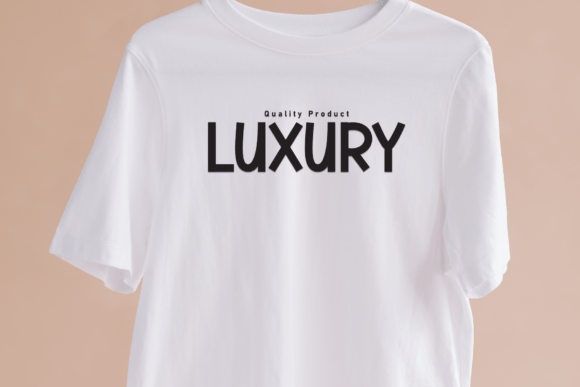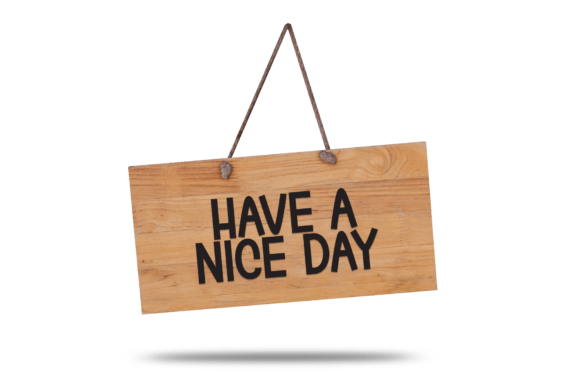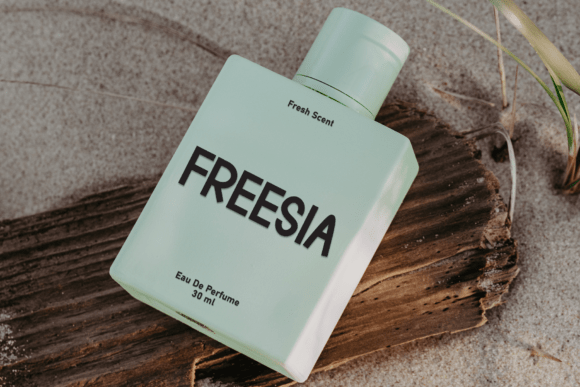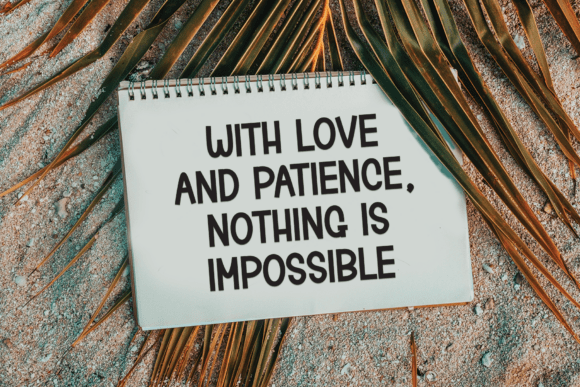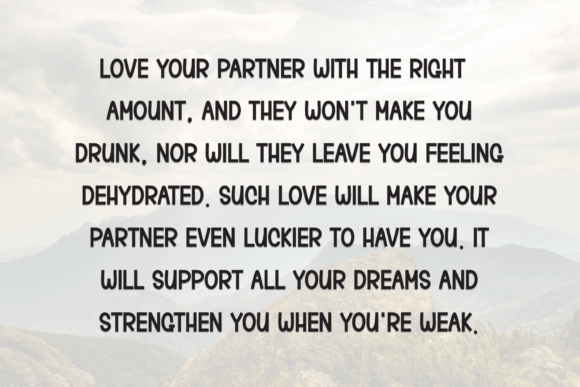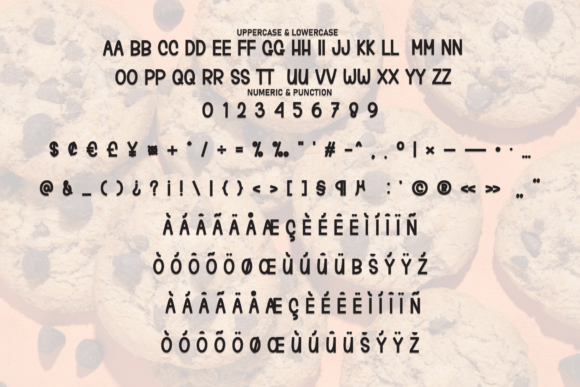
Introducing Choco Biscuit Font: The Perfect Blend of Simplicity and Friendliness
In the world of typography, fonts play a crucial role in conveying the tone and personality of a brand or design. For designers and crafters looking for a font that combines simplicity with a friendly, approachable vibe, Choco Biscuit Font is an excellent choice. This casual and neat display font is designed to capture the essence of modern handwritten typography with a polished finish, making it ideal for a wide range of applications.
Clean Lines, Balanced Letterforms, and Subtle Rounded Edges
Choco Biscuit Font boasts clean lines, balanced letterforms, and subtle rounded edges that give it a unique and charming character. The font’s design is carefully crafted to deliver clarity and charm in equal measure, making it perfect for use in branding, headlines, packaging, and digital content. The clean lines and balanced letterforms ensure that the font is easy to read, while the subtle rounded edges add a touch of warmth and friendliness.
Choco Biscuit Font is a versatile font that can be used in a variety of design projects. Designers and crafters can use it to add a warm and inviting touch to their designs, whether it’s for a brand’s logo, a headline, or packaging. The font’s crisp structure and versatile style make it an excellent choice for digital content, such as blog posts, social media graphics, and website headers.
Key Features of Choco Biscuit Font
- Clean lines and balanced letterforms: Ensuring clarity and readability
- Subtle rounded edges: Adding a touch of warmth and friendliness
- Casual and neat display font: Perfect for headlines, branding, and packaging
- Versatile style: Suitable for digital content and print materials
- Polished finish: Giving it a modern and sophisticated look
How to Use Choco Biscuit Font in Your Designs
Choco Biscuit Font can be used in a variety of design projects, from branding and advertising to packaging and digital content. Here are a few ideas to get you started:
- Branding: Use Choco Biscuit Font as a logo font or as a typography font for your brand’s marketing materials
- Headlines: Add a touch of warmth and friendliness to your headlines with Choco Biscuit Font
- Packaging: Use Choco Biscuit Font on product packaging to give it a modern and sophisticated look
- Digital content: Add a warm and inviting touch to your blog posts, social media graphics, and website headers with Choco Biscuit Font
Why Choose Choco Biscuit Font?
Choco Biscuit Font is an excellent choice for designers and crafters looking for a font that combines simplicity with a friendly, approachable vibe. Here are a few reasons why:
- Unique and charming character: Choco Biscuit Font has a unique and charming character that sets it apart from other fonts
- Versatile style: The font’s versatile style makes it suitable for a wide range of design projects
- Easy to read: The font’s clean lines and balanced letterforms ensure that it’s easy to read
- Modern and sophisticated look: The font’s polished finish gives it a modern and sophisticated look
In conclusion, Choco Biscuit Font is an excellent choice for designers and crafters looking for a font that combines simplicity with a friendly, approachable vibe. Its clean lines, balanced letterforms, and subtle rounded edges make it perfect for use in branding, headlines, packaging, and digital content. With its versatile style and polished finish, Choco Biscuit Font is sure to add a warm and inviting touch to any design.